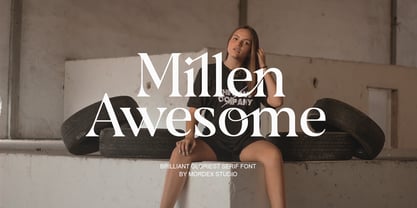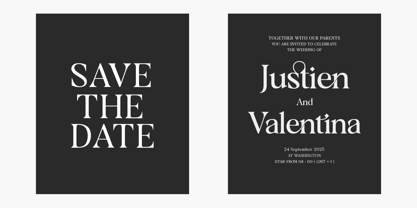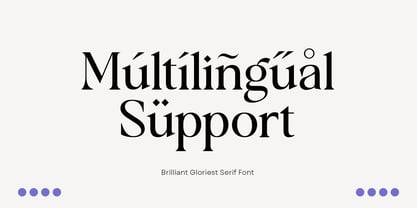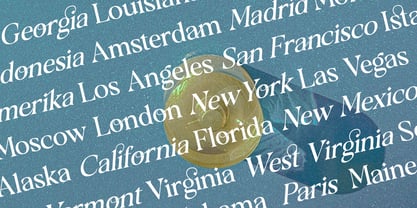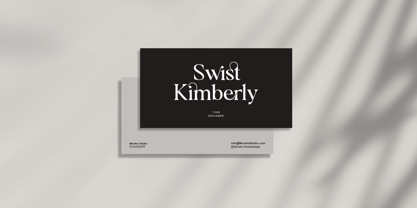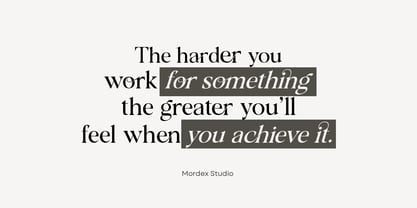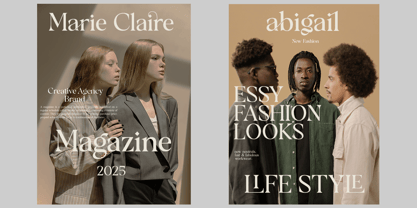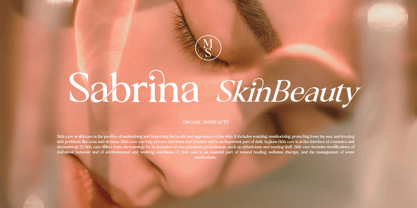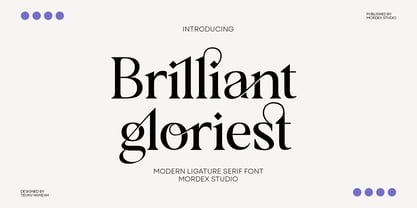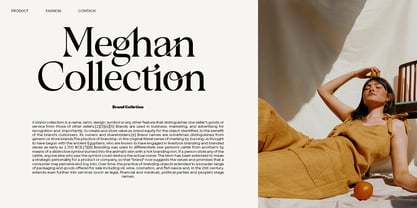
Brilliant gloriest
by Mordex Studio
The Brilliant gloriest Font Family was designed by Teuku Hamzah and published by Mordex Studio. Brilliant gloriest contains 2 styles and family package options.
Brilliant Gloriest is an elegant serif font with subtle curves and a modern, minimalist aesthetic. Designed with a balance of sophistication and flexibility, it blends timeless serif tradition with a contemporary touch. Its italic variations provide subtle contrast, making it perfect for premium branding, editorial layouts, packaging design, wedding concepts, and luxury visual projects. Whether used for bold headlines, stylish logos, or elegant print applications, Nectavia exudes class, harmony, and natural charm. With its clean shapes and graceful details, it offers a refined look.
Uppercase & Lowercase
Alternatives & Ligatures
Numbers & Punctuation
Multilingual Support